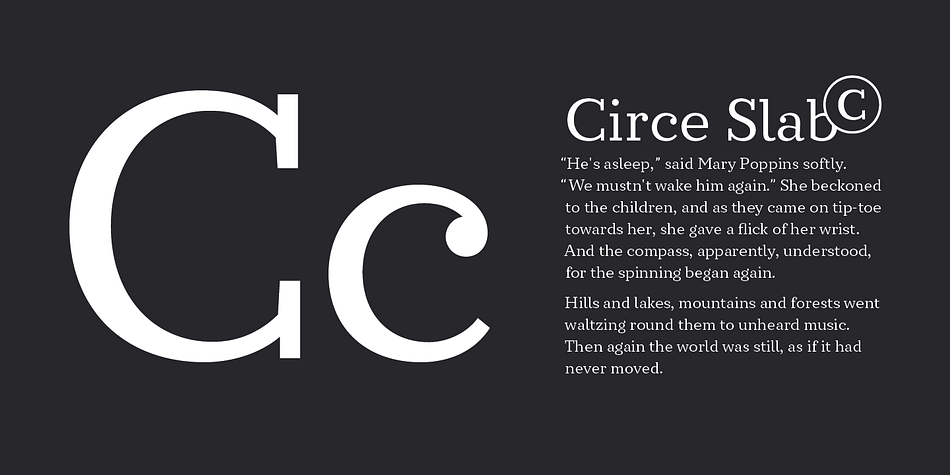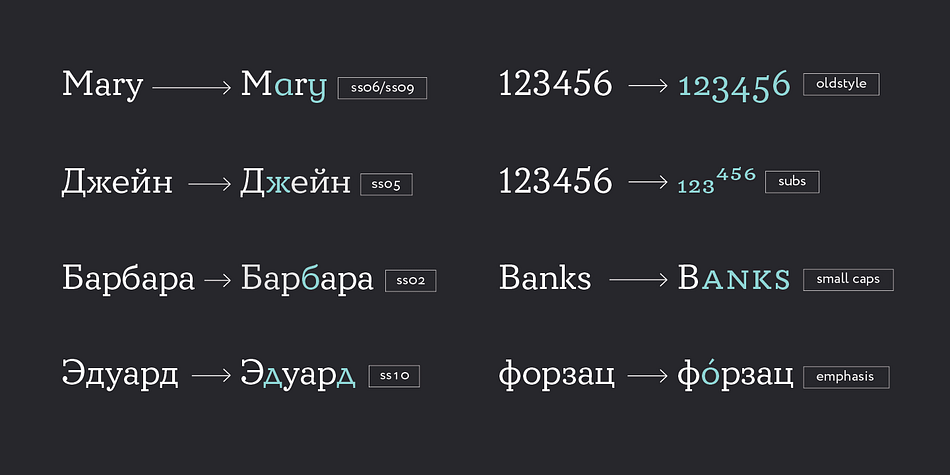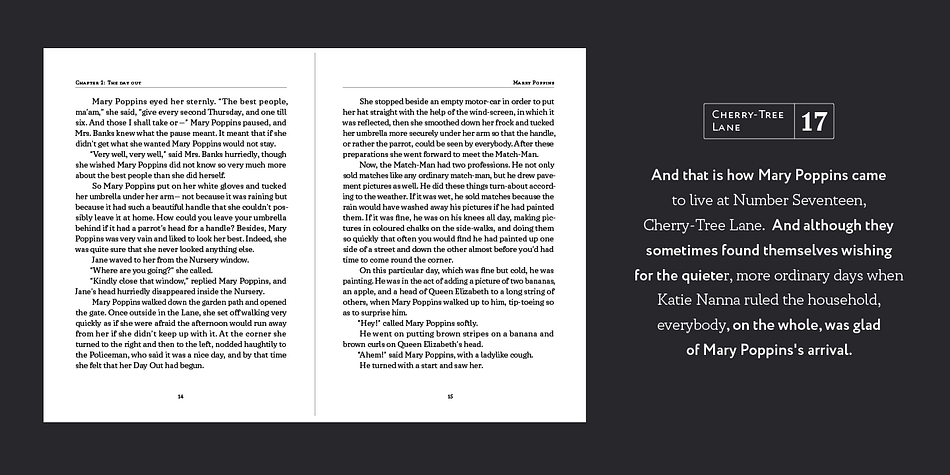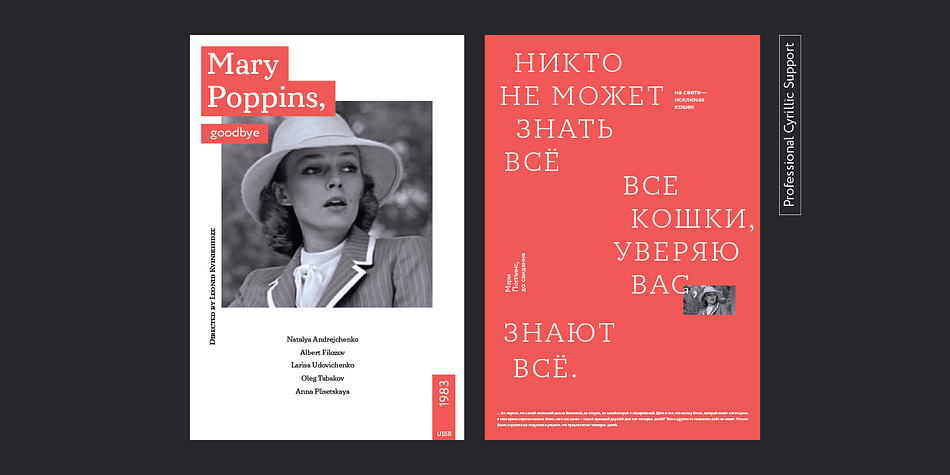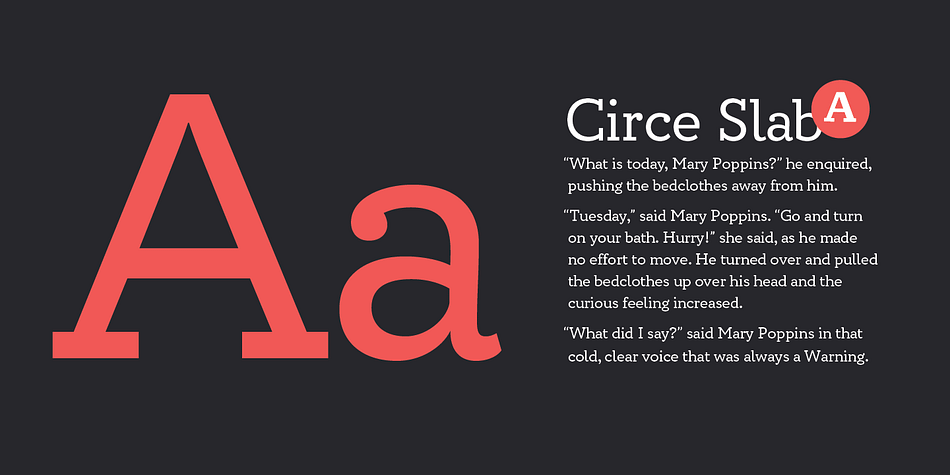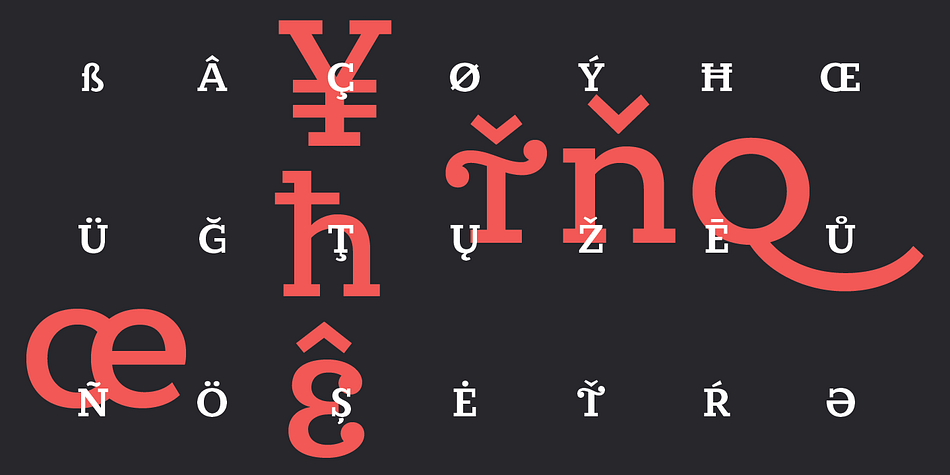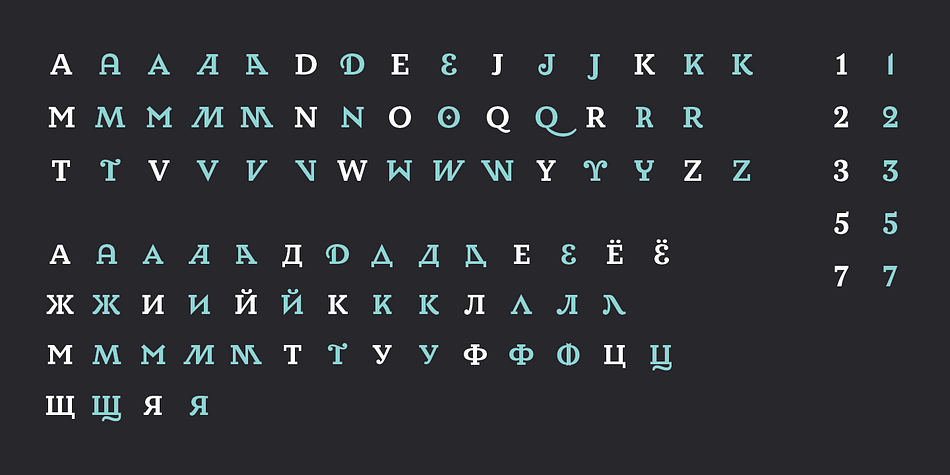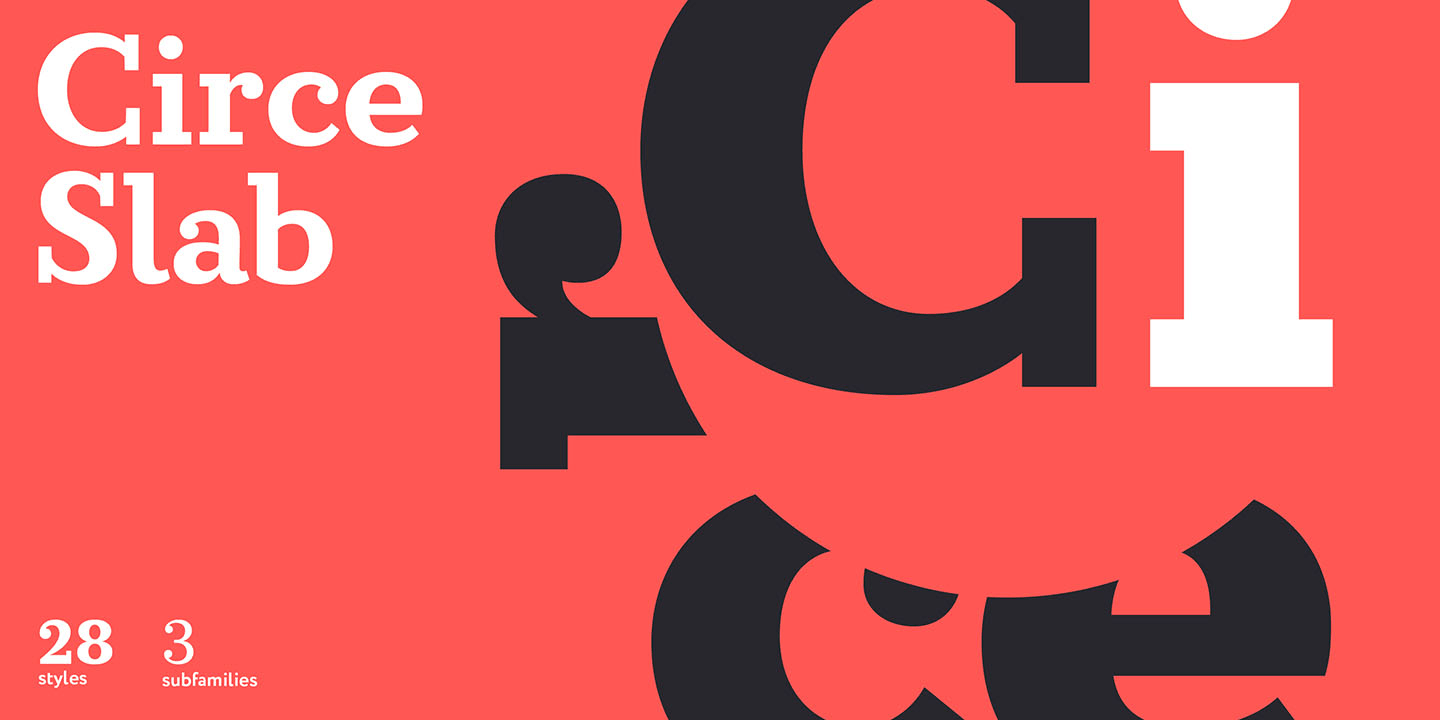
Designed by Alexandra Korolkova, Circe Slab is a slab serif font family. This typeface has twenty-eight styles and was published by ParaType.
Circe Slab is a slab version of the popular geometric sans serif Circe. It contains variations in weight and contrast, including three regular styles that range from non-contrasting geometric (Circe Slab A) to almost typical book serif contrast ones (Circe Slab C). In addition, all text styles have narrowed versions.
The character set of the font includes small caps, minuscule figures and a wide variety of alternative capitals and small caps. Regular styles of Circe Slab are suitable for long texts and the light and bold ones for headlines.
The font was designed by Alexandra Korolkova with the assistance of Oleksa Volochay and released by Paratype in 2018.